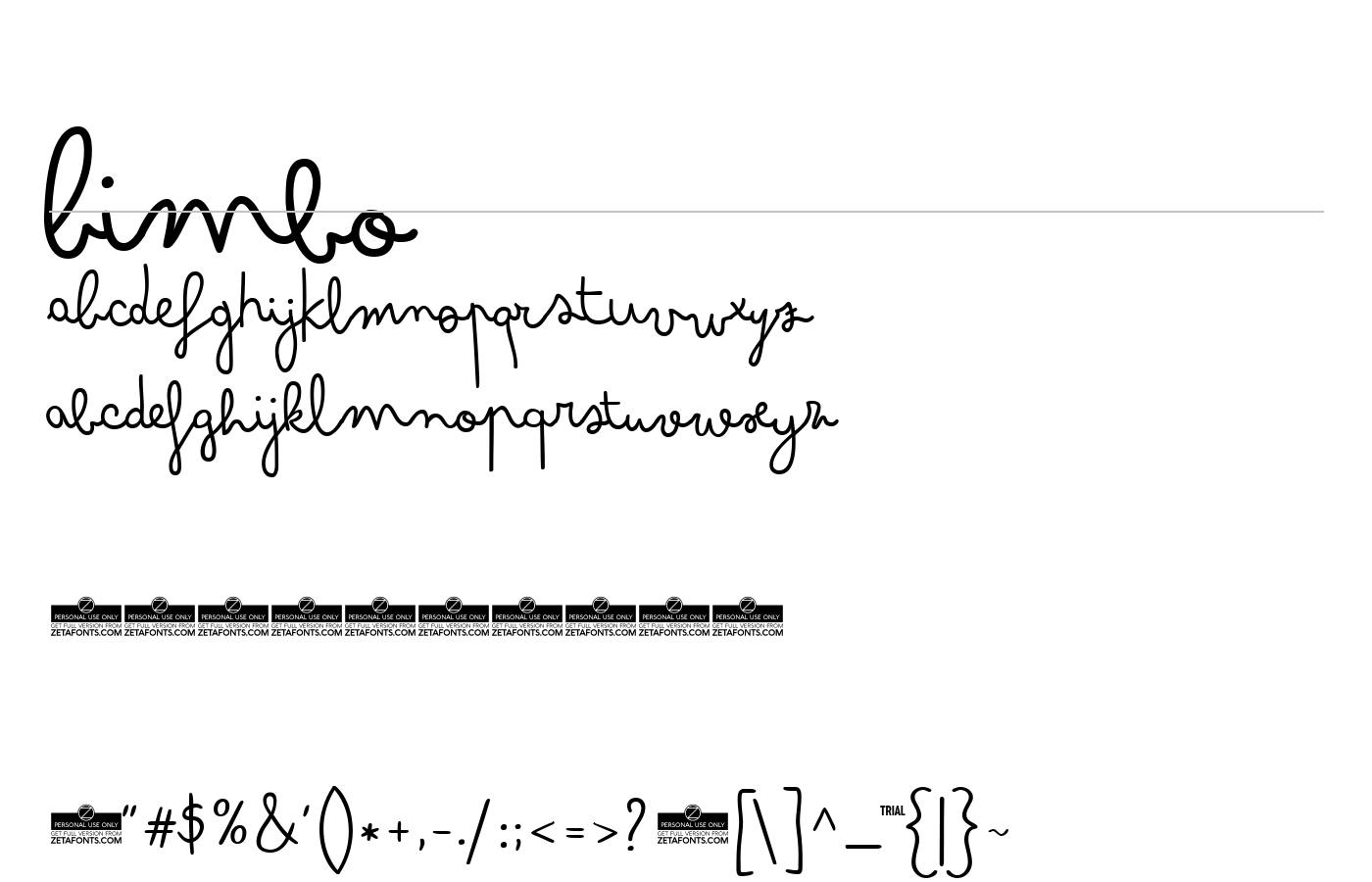
Bimbo Font is a playful and casual handwritten script featuring thin, smooth strokes with a lively, irregular flow that mimics natural handwriting. Its tall, narrow letterforms and whimsical loops give it a friendly, approachable personality, making it ideal for informal branding, personal projects, and creative headlines where a warm, human touch is desired. This font works best in contexts that aim to convey charm and individuality without sacrificing readability.
Bimbo Font
About Bimbo Font
| Font family | Bimbo Font |
| Designer | Francesco Canovaro with Chiara Ghezzi and Niklas Jonsson after Jonathan Calugi |